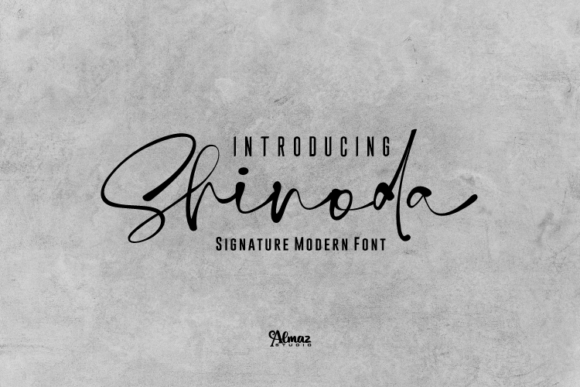
Immerse yourself in the captivating realm of Shinoda, an exquisite script font that exudes grace and personality. Crafted with meticulous attention to detail, each letter dances across the page like a whispered secret.
Indulge in its versatility as it transforms your designs into masterpieces. Whether you're crafting heartfelt wedding invitations or designing eye-catching logos, Shinoda's charm will captivate your audience. Its effortless flow adds a touch of whimsy to thank-you cards, while its elegant swirls lend an air of sophistication to greeting cards.
With Shinoda by your side, you'll effortlessly elevate your designs to new heights. Its captivating presence will ignite your creativity and inspire you to create works of art that leave a lasting impression.
Embrace the power of Shinoda and unlock the boundless possibilities of your imagination. Its alluring curves and enchanting style will make your designs shine brighter than ever before.